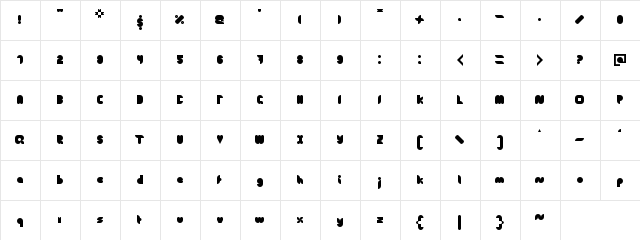
Big Taste Regular
Design Context for Big Taste Typeface
Big Taste is a composed and adaptable typeface that performs quietly and consistently across a wide range of design contexts.
Pro Tip: Pair Big Taste with a font of contrasting weight or personality to build a more expressive typographic hierarchy.